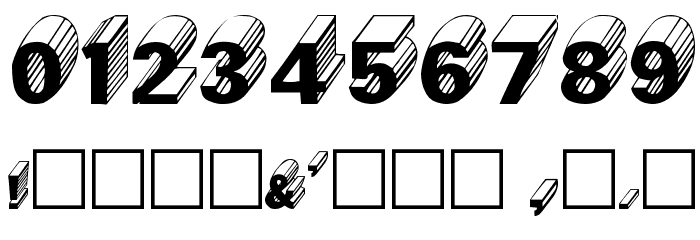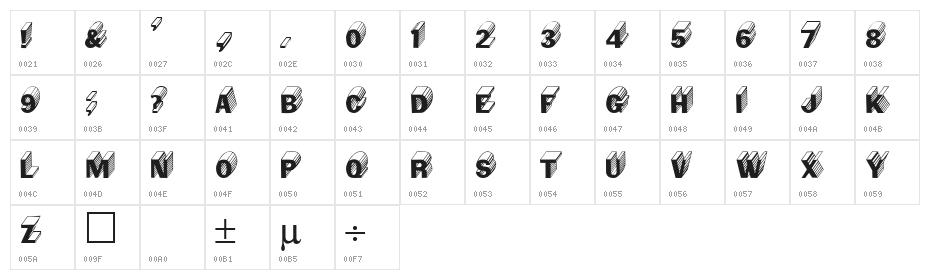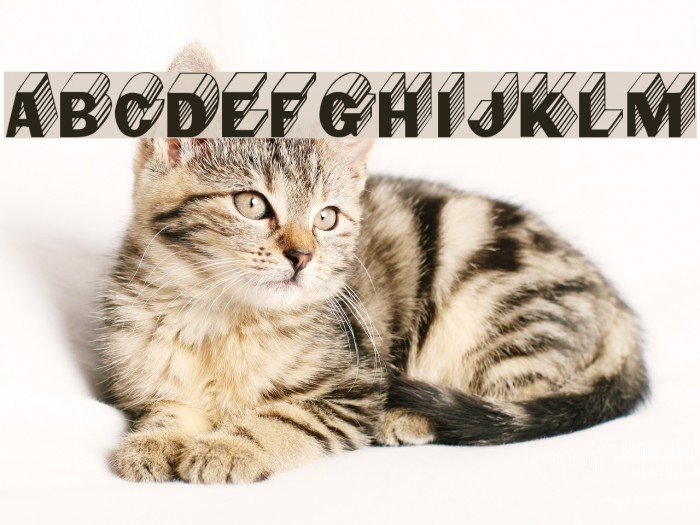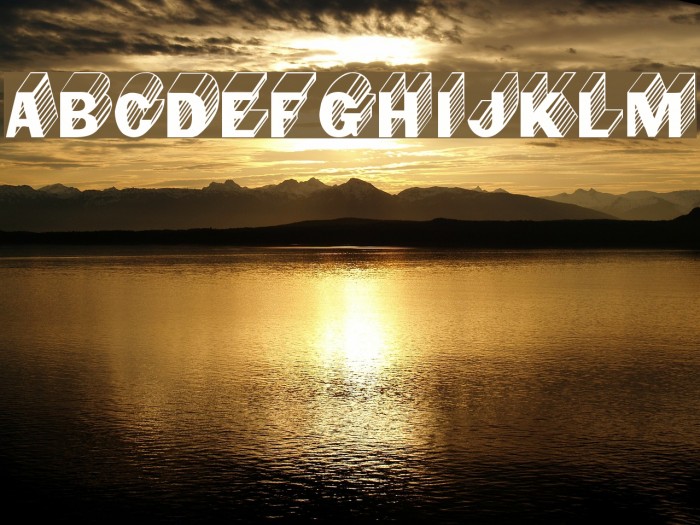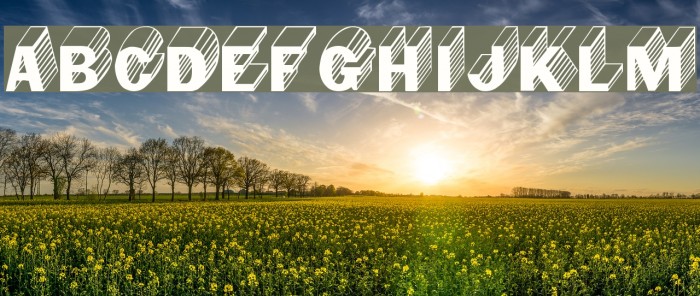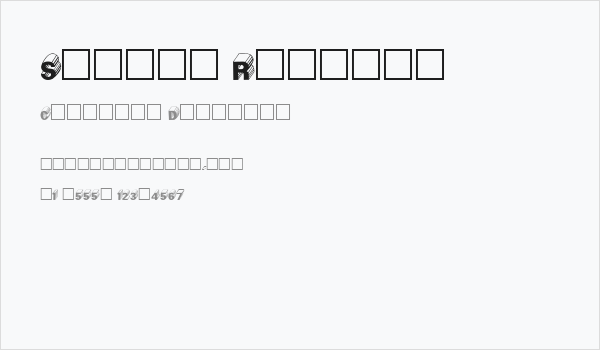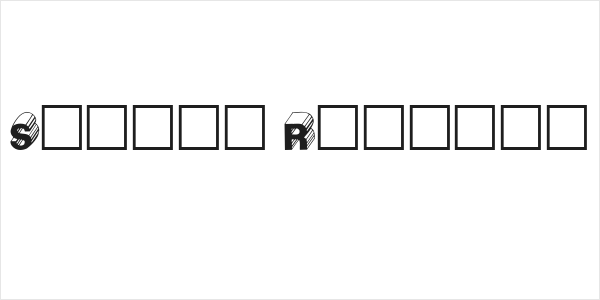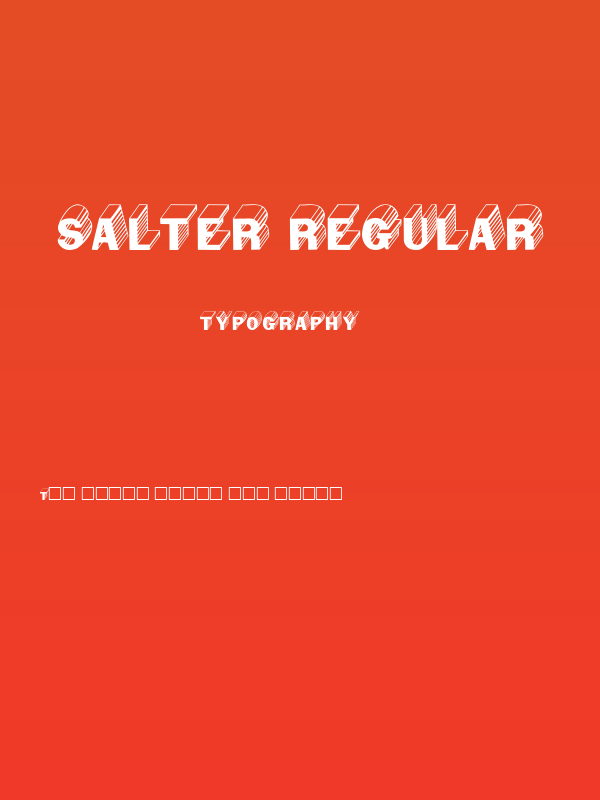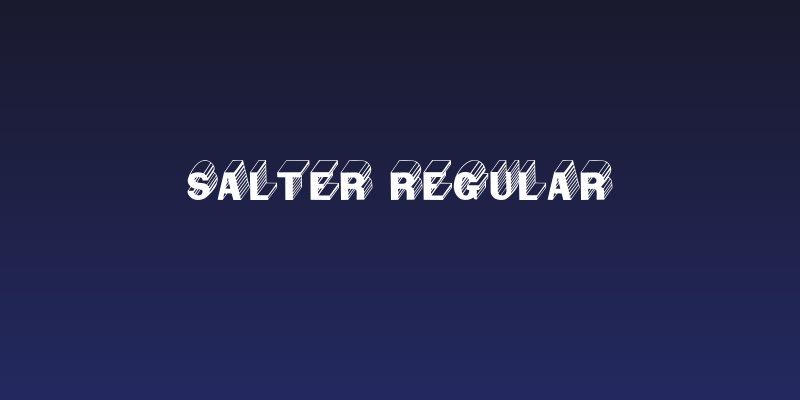
Salter Regular Font
Salter Regular Description
This font features a bold, three-dimensional design with a striped pattern that gives it a dynamic and eye-catching appearance. The letters are uppercase and have a strong, geometric structure, making them stand out prominently. The numbers follow the same style, ensuring consistency across the character set. The font's unique style is characterized by its shadowed effect, which adds depth and a sense of movement. This makes it particularly suitable for projects that require a bold statement or a modern, playful touch.